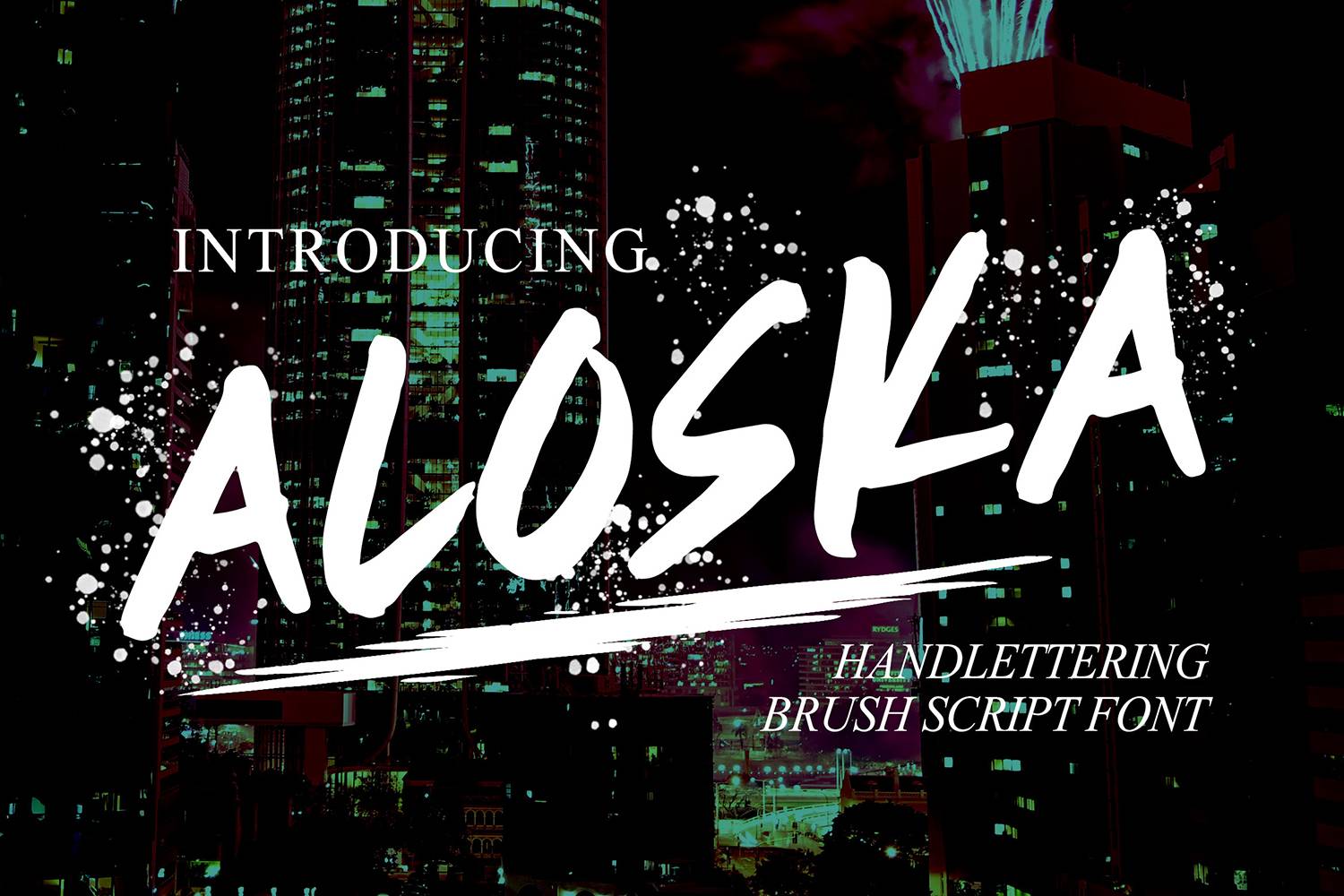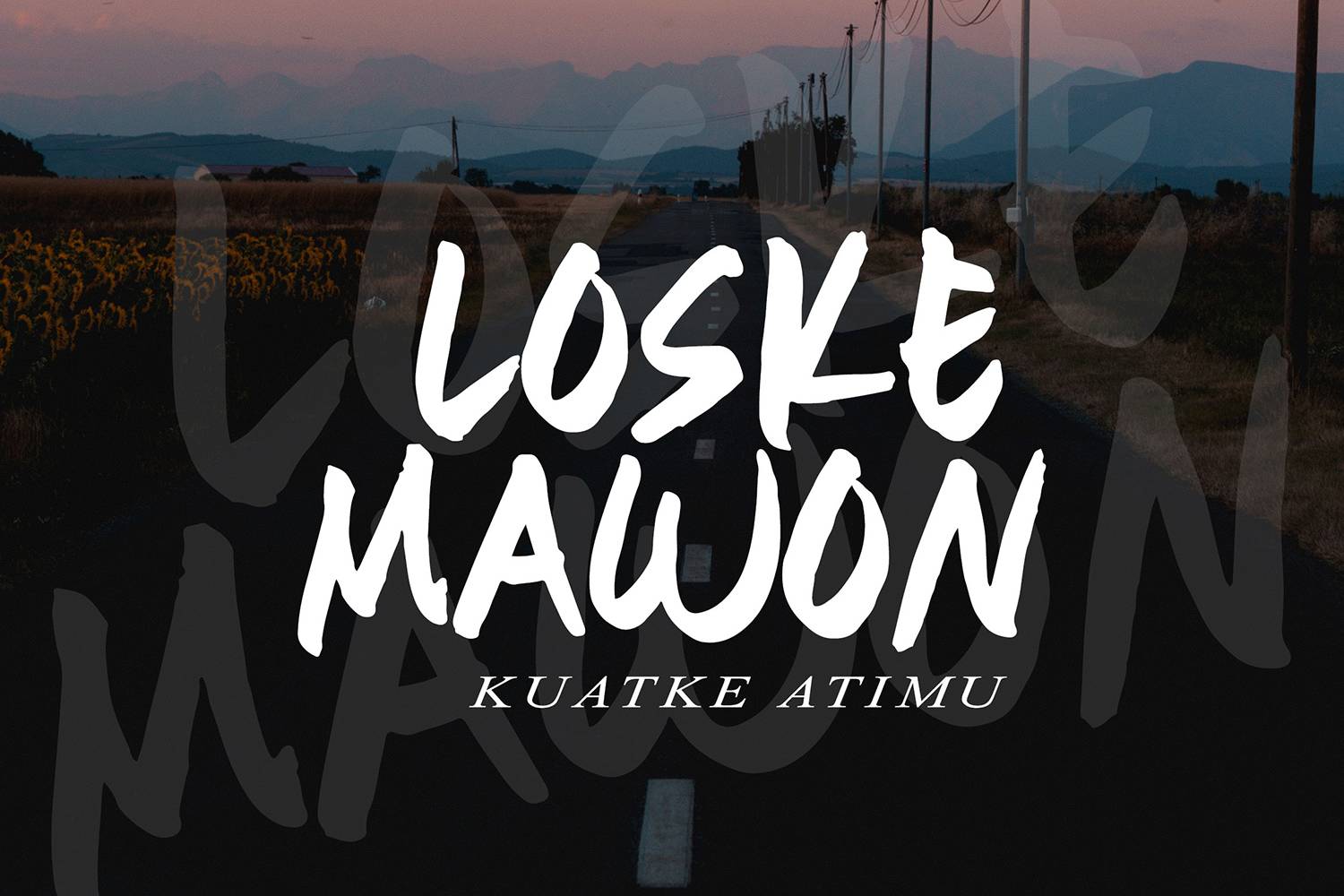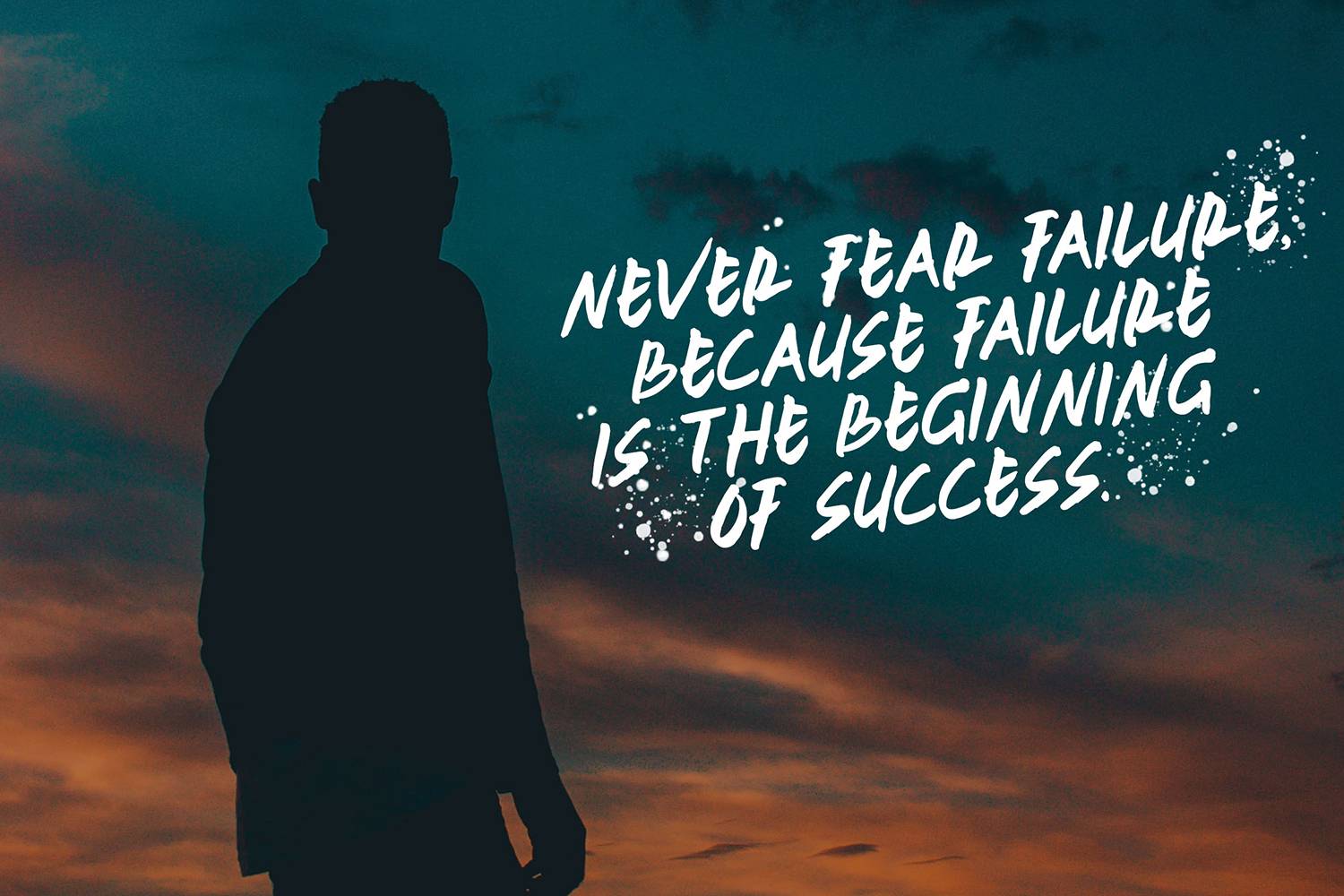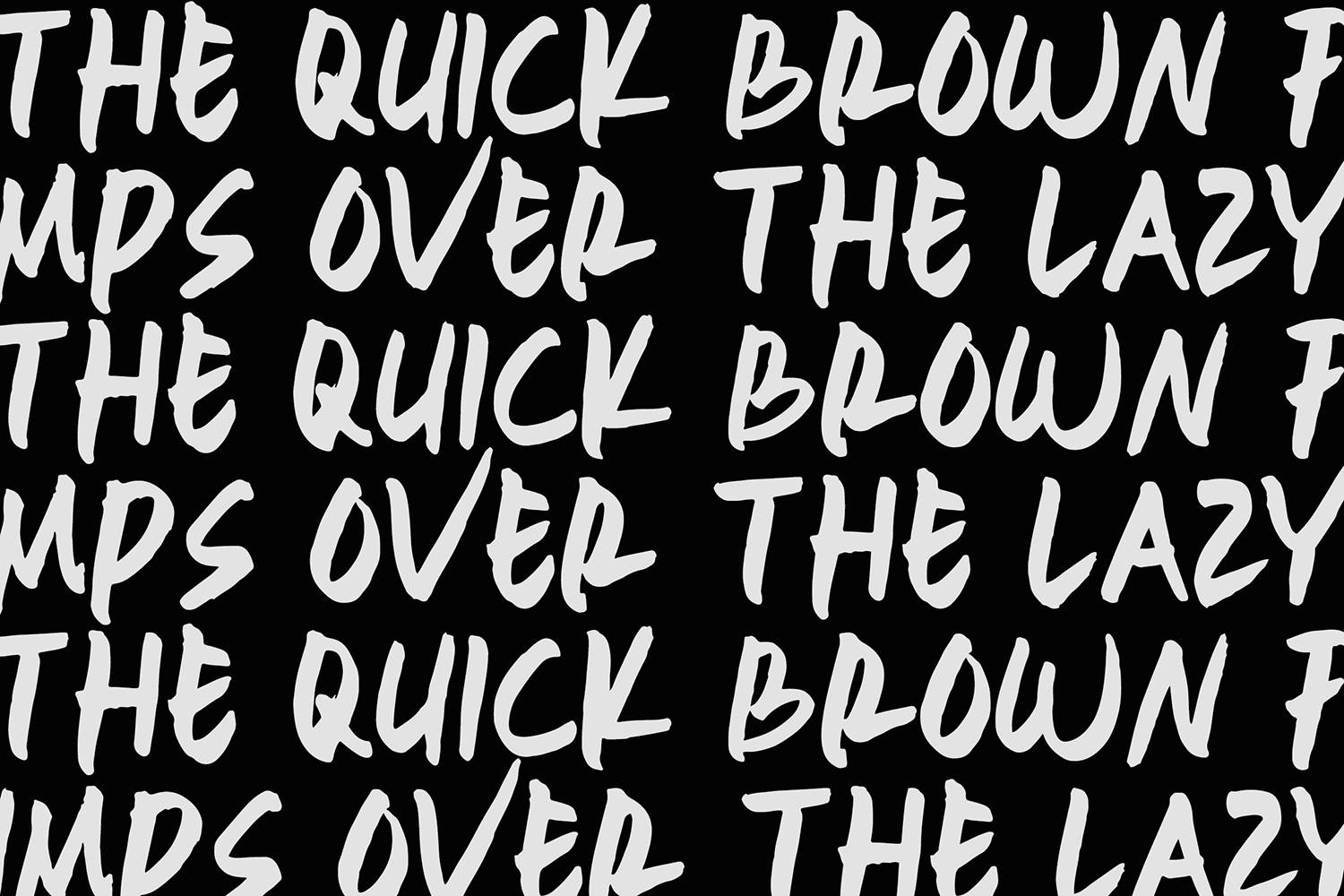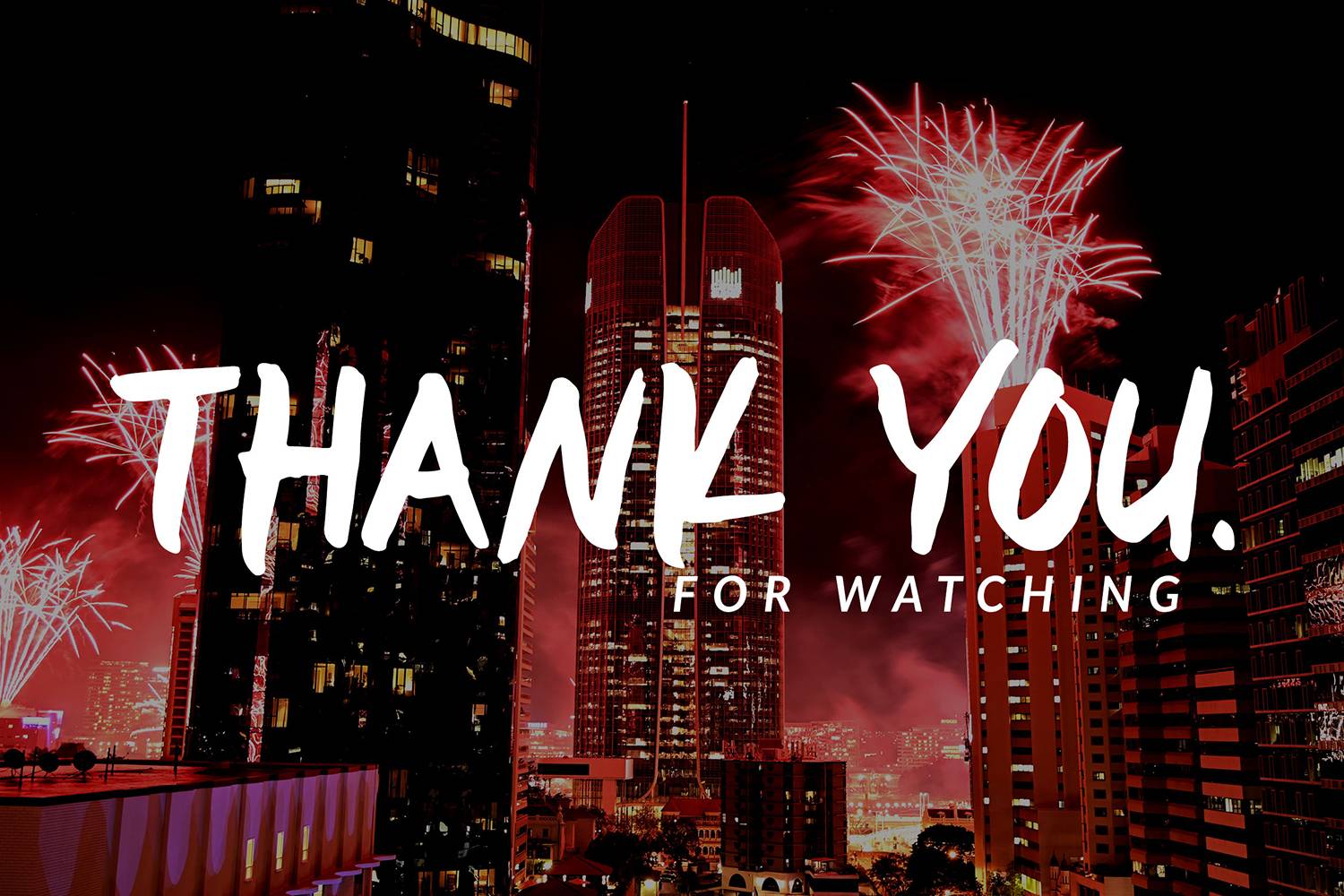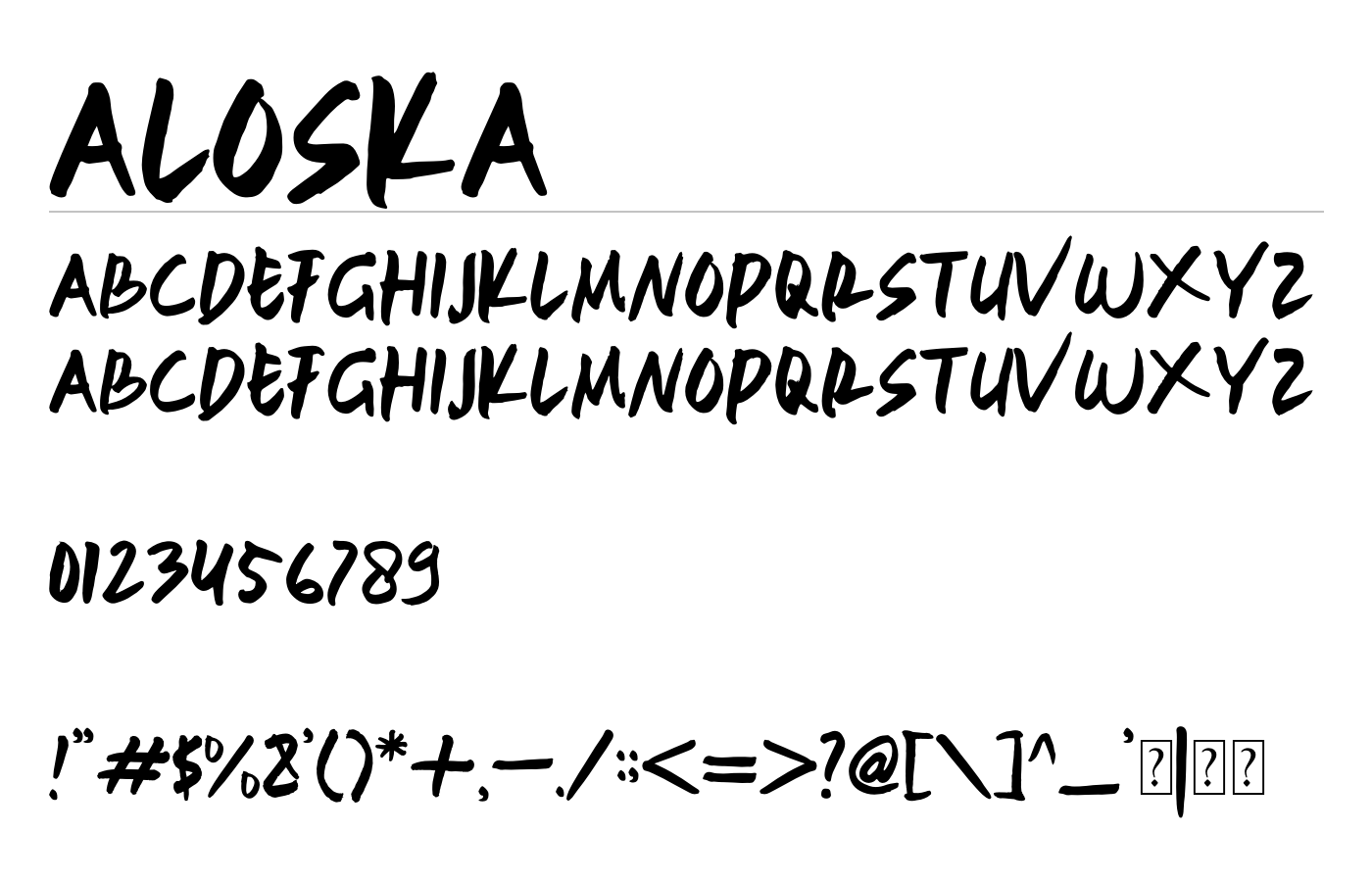
Aloska is a bold, handwritten-style font that captures a casual yet energetic feel through its irregular, brush-like strokes and lively letterforms. Its slightly condensed width and dynamic variations in stroke thickness give it an authentic, personal touch, making it ideal for creative projects, branding, and headlines that seek a friendly, approachable vibe. This font works especially well in designs that want to convey spontaneity and warmth while maintaining strong visual impact.
Aloska Font
About Aloska Font
| Font family | Aloska Font |
| Designer | Ahmad Muslimin |